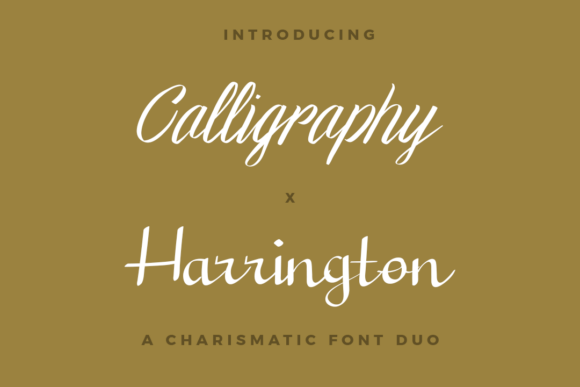
Calligraphy X Harrington Duo: Elegant Script for Editorial Design
There’s a quiet confidence in choosing the right font. It’s not just about aesthetics—it’s about how it shapes the way readers feel when they encounter your words. For a recent lifestyle blog redesign, I found myself drawn to the Calligraphy X Harrington Duo, a premium font that feels both timeless and modern. Its blend of cursive grace and traditional structure made it an ideal fit for headers, pull quotes, and cover text, offering a visual rhythm that complements editorial content without overpowering it.
The Calligraphy X Harrington Duo is a script font with a distinct personality. It carries the softness of handwritten calligraphy but maintains the precision of a well-crafted typeface. The flowing curves and subtle variations in stroke weight give it a warm, inviting presence, while the consistent baseline ensures readability even in smaller sizes. This balance makes it a versatile choice for editorial design, where both form and function must coexist harmoniously.
A Font That Speaks to Editorial Mood
When working on a recipe ebook, I experimented with the Calligraphy X Harrington Duo for chapter openers and title pages. The font added a sense of refinement that matched the elegant tone of the content. Its organic flow felt like a gentle guide through the pages, drawing the eye without demanding attention. It worked particularly well as a display font for section headings, where its character could shine without disrupting the reading experience.
In a wedding guide project, the font proved equally effective. Used for pull quotes and header graphics, it brought a touch of sophistication to the layout. The font’s ability to convey warmth and charm made it a natural fit for content centered around celebration and personal expression. It wasn’t just a font—it was a mood setter, helping to shape the visual identity of the publication.
Supporting Visual Hierarchy and Reader Engagement
One of the strengths of the Calligraphy X Harrington Duo lies in its ability to support visual hierarchy. As a display font, it excels at drawing attention to key elements such as article titles, newsletter headers, and social media graphics. Its fluidity and elegance make it ideal for branding, whether it’s used in a logo design or as part of a larger editorial style guide.
However, it’s important to consider where this font fits best. While it works beautifully in short-form text, it may not be the best choice for long paragraphs or dense body copy. Its expressive nature can become distracting when used in extended reading contexts. For such cases, pairing it with a readable serif or sans serif font—like a classic Times New Roman or a clean Helvetica—can create a balanced and professional look.
Practical Applications in Editorial Layouts
The Calligraphy X Harrington Duo has proven useful across a range of editorial projects. In a printable planner, it was perfect for decorative accents and section labels, adding a personal touch without overwhelming the user. For a coaching workbook, it helped reinforce the tone of inspiration and creativity, making it a valuable tool in content branding.
When used in a digital magazine layout, the font enhanced the visual appeal of headlines and featured sections. Its versatility allowed it to adapt to different design needs, from bold cover text to subtle decorative elements. It also performed well in PDF exports, maintaining clarity and legibility across various formats.
Considerations for Readability and Design
Readability is a crucial factor when selecting a font, especially for content that will be viewed on screens or printed materials. The Calligraphy X Harrington Duo holds up well in mobile layouts and web design, thanks to its clear letterforms and consistent spacing. However, it’s essential to test it at different sizes and in various contexts to ensure it remains legible.
For print materials, the font’s subtlety and finesse make it suitable for covers, brochures, and packaging design. But again, it’s best reserved for shorter text rather than large blocks of content. When paired with a complementary font, it can enhance the overall aesthetic of a publication without compromising functionality.
Font Pairing and Design Assets
As with any display font, thoughtful pairing is key to achieving a cohesive design. The Calligraphy X Harrington Duo pairs well with a range of fonts, depending on the desired effect. A serif font like Georgia or Garamond can provide a classic contrast, while a clean sans serif like Roboto or Open Sans offers a modern, minimalist approach.
Before using the font in commercial projects, it’s wise to check the included styles, alternates, and ligatures. These features can add depth and variation to the design, allowing for more creative flexibility. Additionally, ensuring multilingual support and proper licensing is essential for anyone planning to use the font in ebooks, templates, or paid publications.
Whether you’re designing a lifestyle blog, a recipe ebook, or a wedding guide, the Calligraphy X Harrington Duo offers a refined and expressive option for editorial design. Its blend of elegance and readability makes it a valuable addition to any designer’s toolkit, especially when used with care and intention.